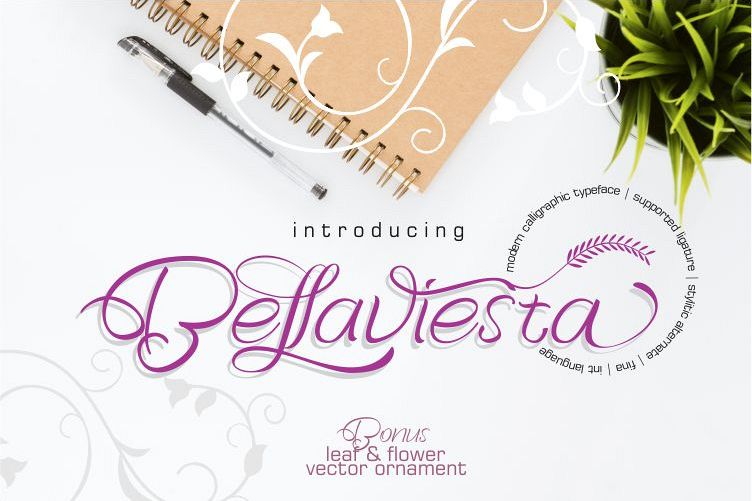
Bellaviesta
Bellaviesta is a modern calligraphy font, this font has many functions such as company logos,
product brands, wedding invitation cards, movie titles, book titles, web titles,
this font is very clear and easy to read and will be more artistic because we are equipped with
ligature, fonts alternative, alternative tail, and beautiful oranamen bonuses to make
your logo or product look more artistic and classy.